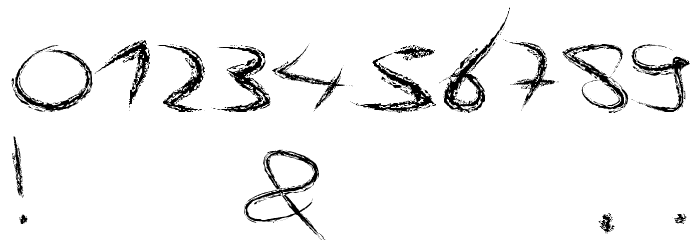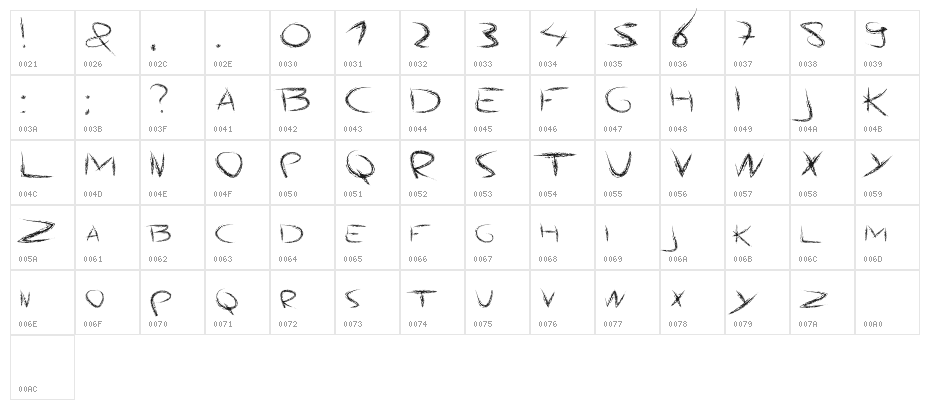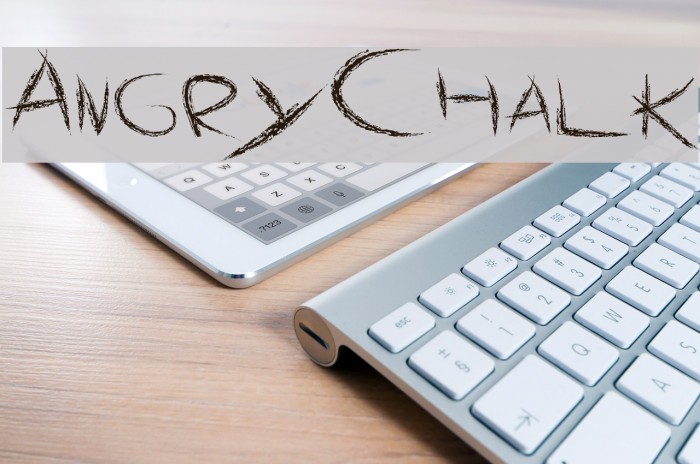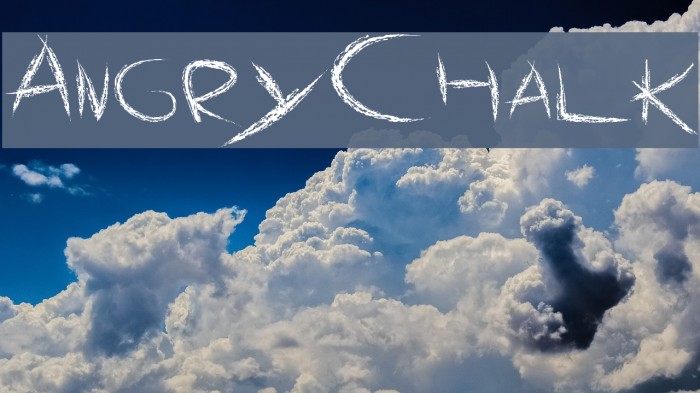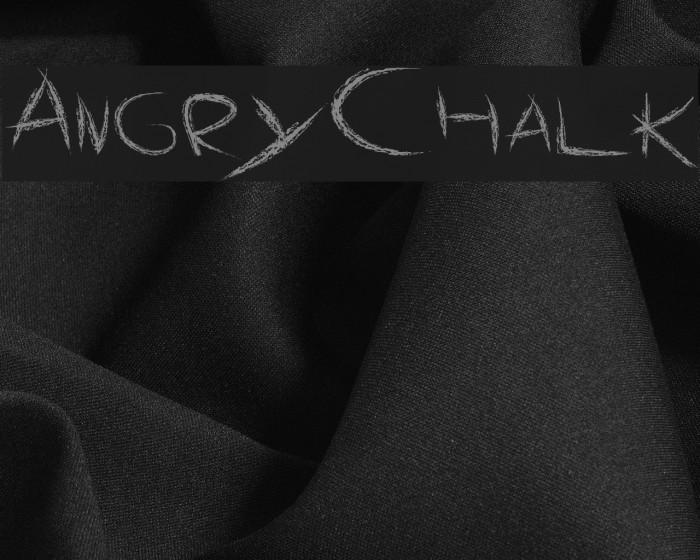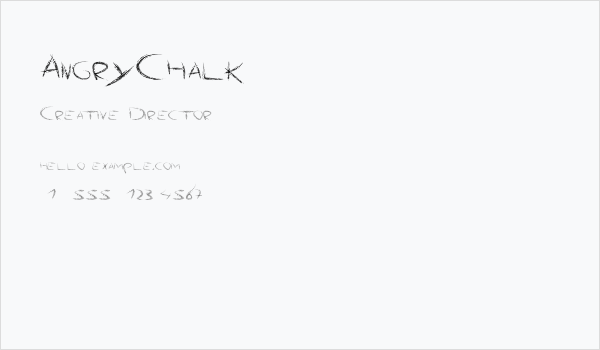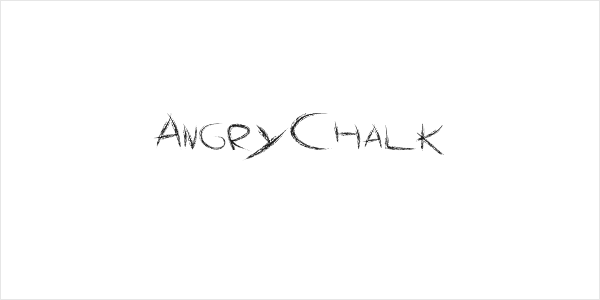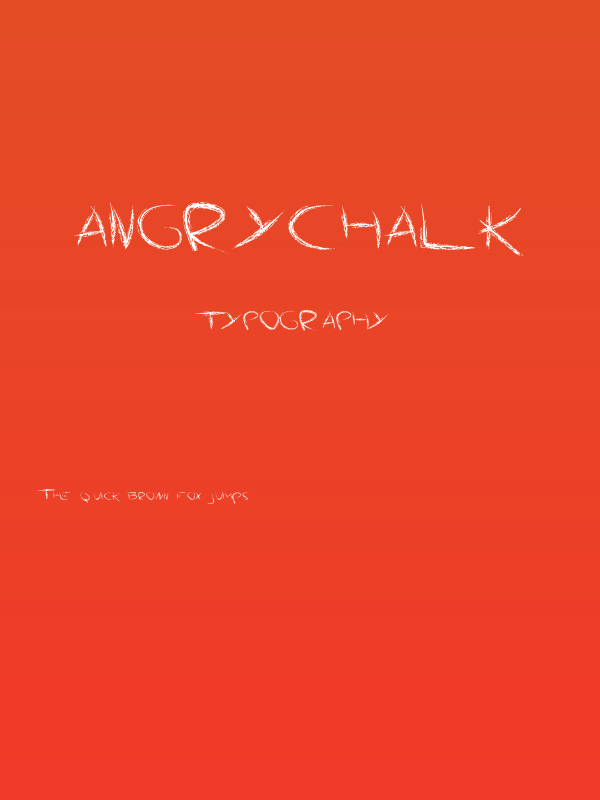
AngryChalk Font
AngryChalk Description
This font exudes a raw, energetic vibe with its rough, chalk-like texture. The characters are irregular and jagged, giving an impression of spontaneity and dynamism. The strokes are uneven, with a hand-drawn appearance that suggests a sense of urgency or intensity. The uppercase and lowercase letters maintain a consistent style, while the numbers and special characters complement the overall aesthetic. This font is perfect for projects that require a bold, expressive touch, such as posters, album covers, or edgy branding materials.
| Overall Style | Expressive, Energetic, Raw |
| Proposed Projects | Ideal for posters, album covers, edgy branding, and expressive designs. |